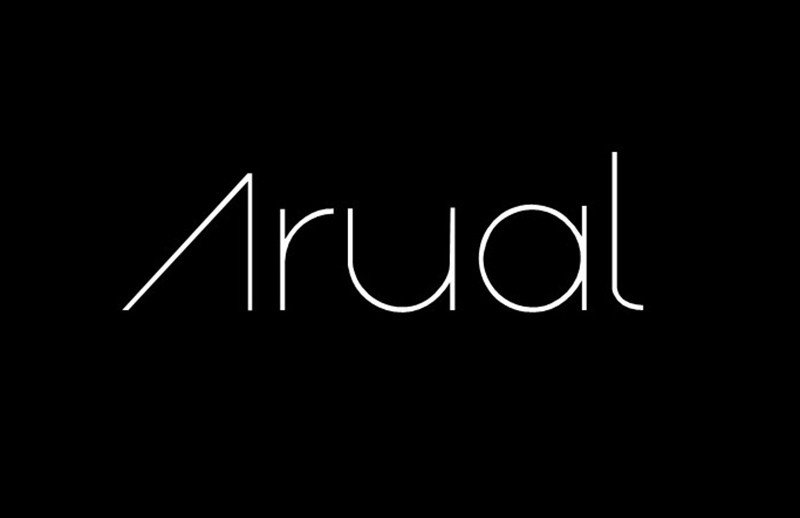
Arual Free Font
Arual Font is a basic sans serif font that comes along with the most surprising texture ever. Its unique texture is the main thing that attracts the viewers. It was made by a very fashionable designer Mr. Curtis Mack 28 February 2011. It’s been almost nine years since its release but even today, its popularity is still strong.